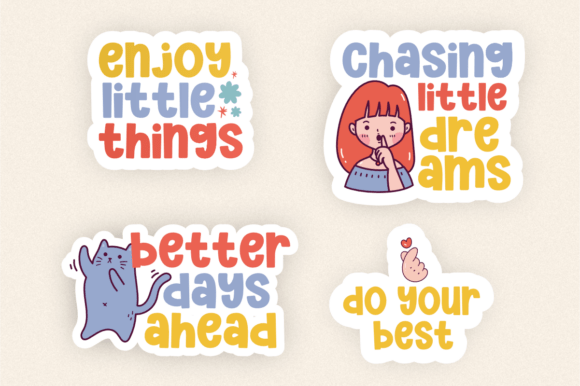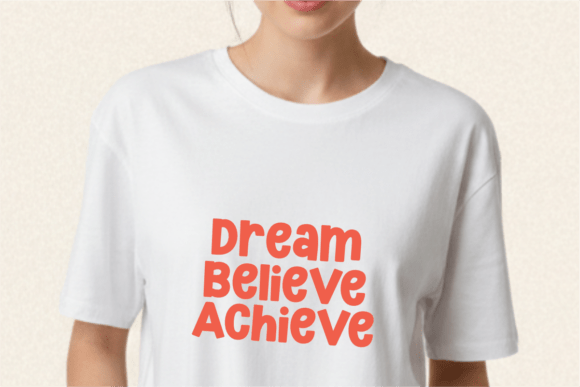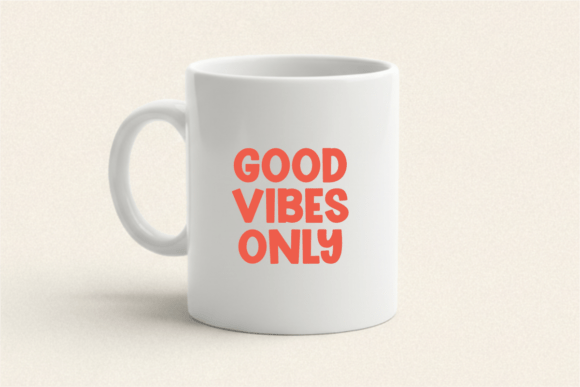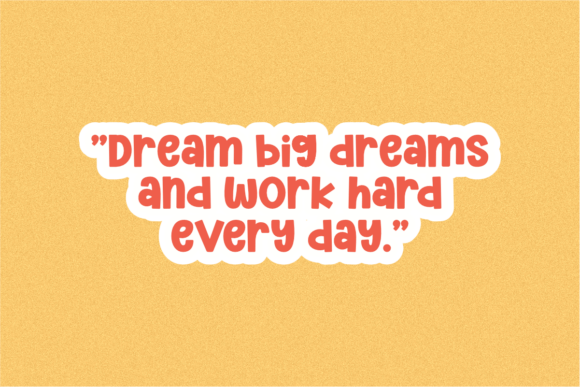
Enter the enchanting Dreams Dreams Font, a delightful combination of handwritten fonts designed by Sakti Avellin to spread warmth and joy. This charming typeface is perfect for bringing a playful touch to children’s educational materials, nursery decor, and social media headers. Its unique blend of bold and slender letterforms makes it a standout choice for designers seeking to create a genuine, handcrafted feel that resonates with their audience.
With the Dreams Dreams Font, designers can effortlessly create engaging, heartfelt designs that cater to all ages. Whether you’re crafting birthday invites, toy store branding, or family-oriented blog headers, this expressive typeface is sure to bring your creative vision to life.
Dreams Dreams Font Key Features
- Font Family: Dreams Dreams Font is a sans-serif font designed for digital use.
- Unique Characteristics: The Dreams Dreams Font features a unique blend of modern and vintage elements, with a distinctive rounded edge and subtle flair, making it ideal for creative and artistic projects.
Dreams Dreams Font Review
Overall, I’m quite impressed with the Dreams Dreams Font. ✨ Its elegant and whimsical design makes it perfect for creating dreamy and ethereal visuals. Here are some of its notable features:
- Unique letterforms that evoke a sense of softness and playfulness ✨
- Excellent for use in watercolor or hand-drawn design styles ✨
- Works well in titles, headings, and short body text ✨
- May not be the best choice for body text, as it can be difficult to read in longer paragraphs ⚠️
- Lack of scalability in smaller font sizes ⚠️
- May require additional styling to achieve a cohesive look ⚠️
Overall, I think Dreams Dreams Font is a beautiful and unique font that can add a touch of magic to your designs. With some careful planning and styling, it can be a valuable addition to your font collection. Just be mindful of its limitations and use it thoughtfully.
For best results, use “Dreams Dreams Font” in designs that require a whimsical and playful feel.
1. Children’s book illustrations.
2. Wedding invitations.
3. Social media graphics.
4. Branding materials for creative and artistic businesses.